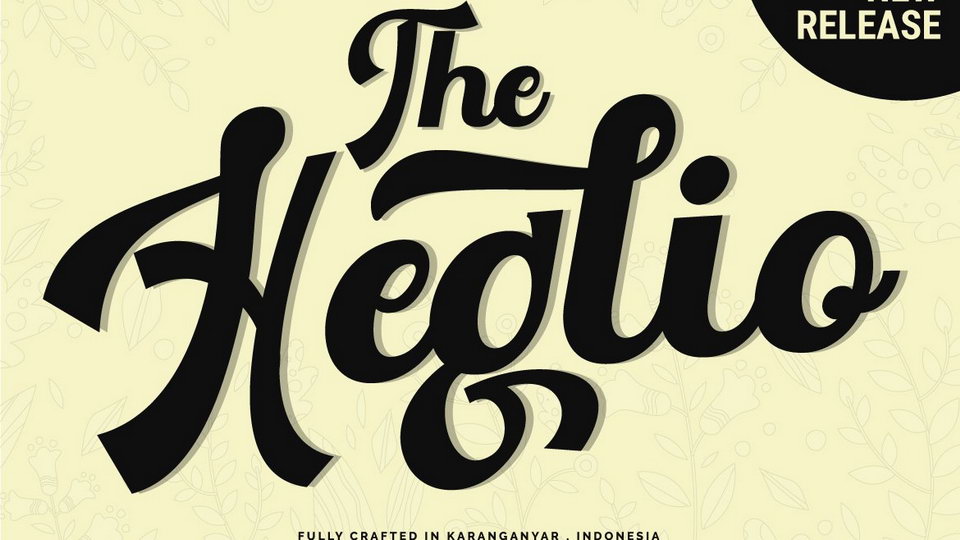
Download The Heglio font, an amazing script typeface designed under inspiration of vintage bar signage, hotel signage, barbershop signage ect. The Heglio has a classic impression but still elegant suitable for modern and classic designs project.
Designer: FallenGraphic Std